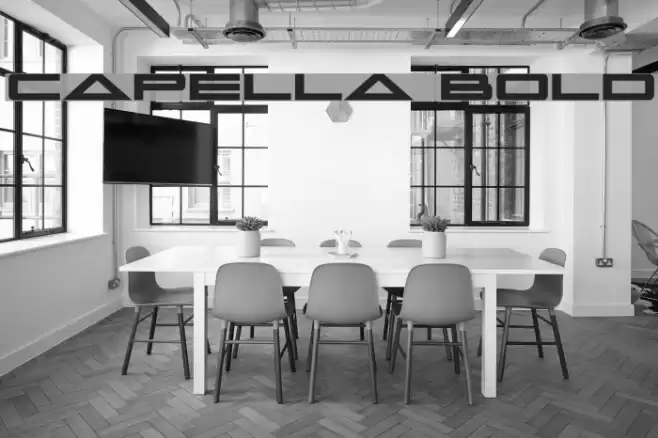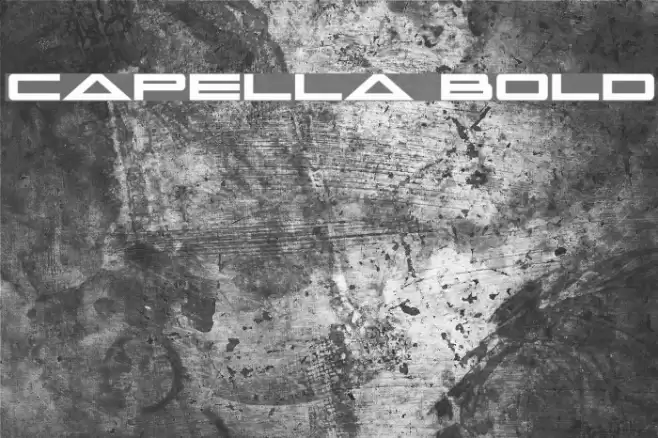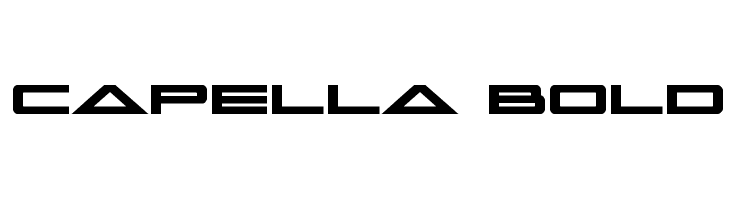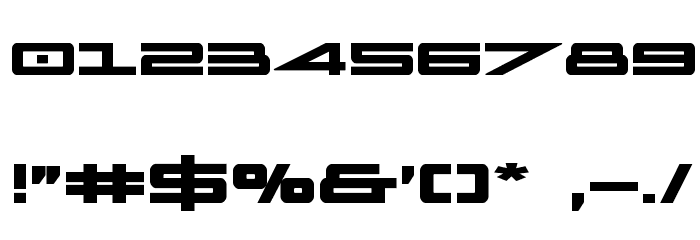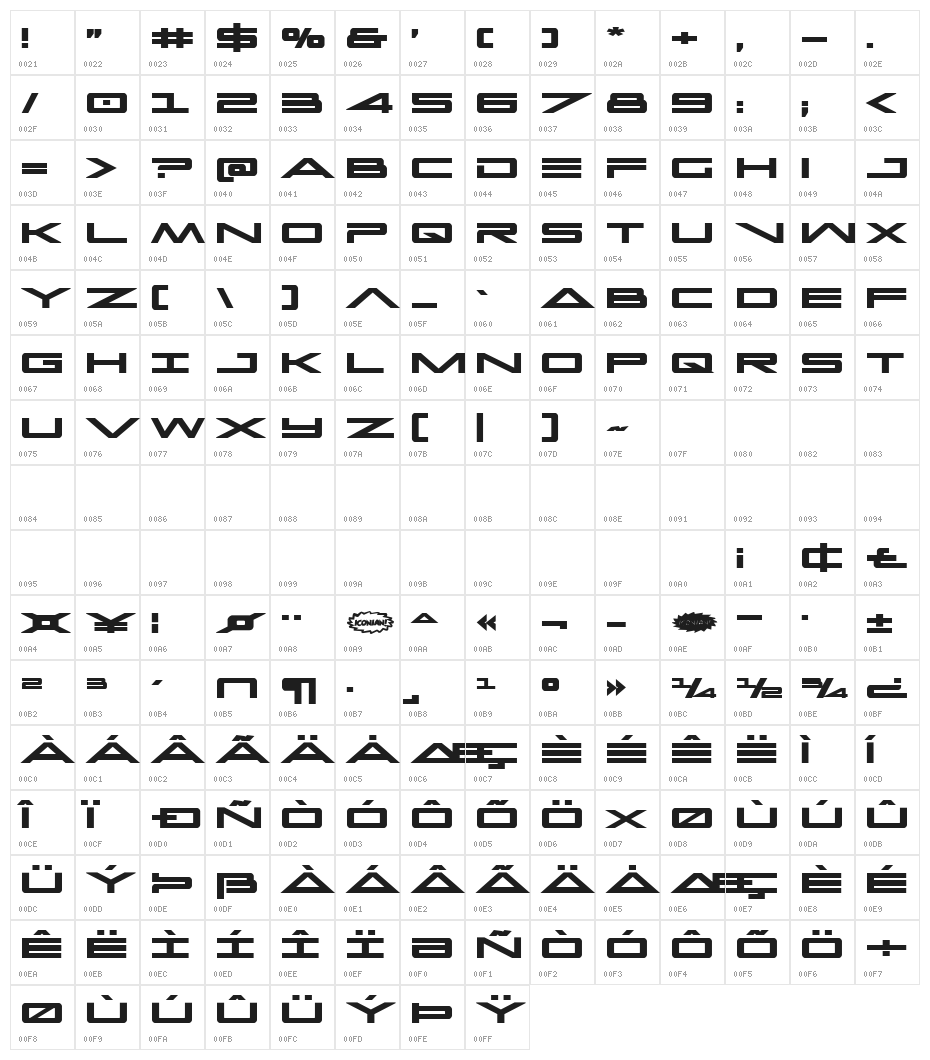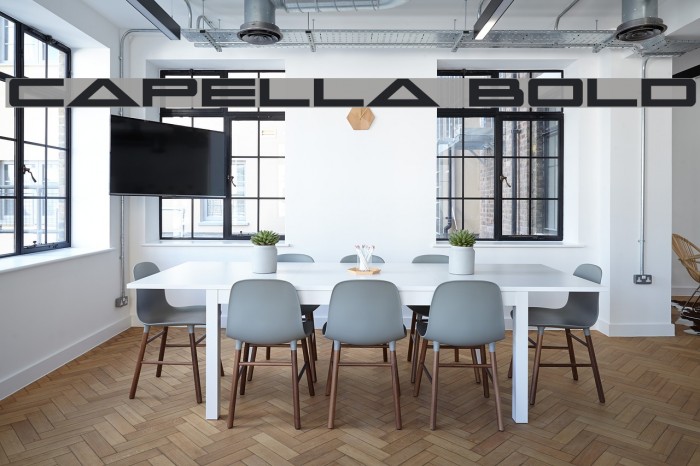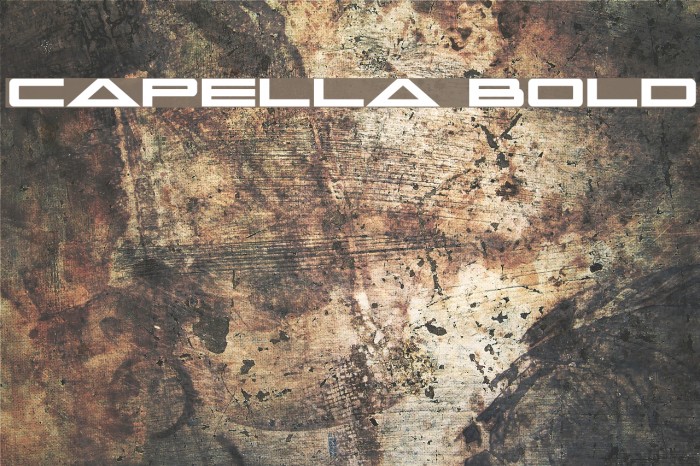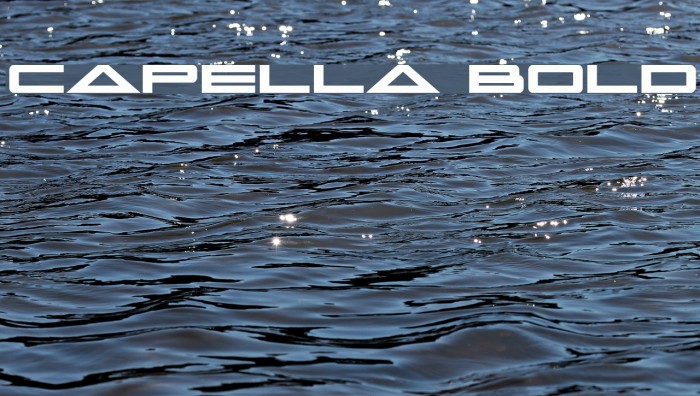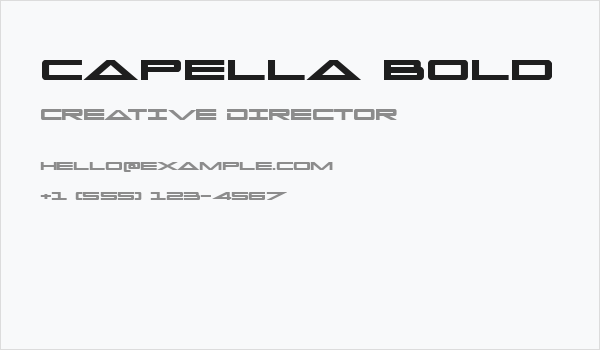
This font features a futuristic and geometric design, characterized by sharp angles and a bold presence. The uppercase letters are distinct with their angular cuts and consistent stroke weight, giving them a modern and technical appearance. The lowercase letters maintain the same geometric style, ensuring uniformity across the typeface. Numbers are designed with a similar aesthetic, providing a cohesive look. Special characters are included, matching the overall style with their bold and angular forms. This font is ideal for projects that require a modern, tech-inspired look.
A bold, geometric font with a futuristic and technical design from Uncategorized fonts.
- Proposed Projects: Ideal for technology branding, sci-fi posters, video game titles, and modern logos.